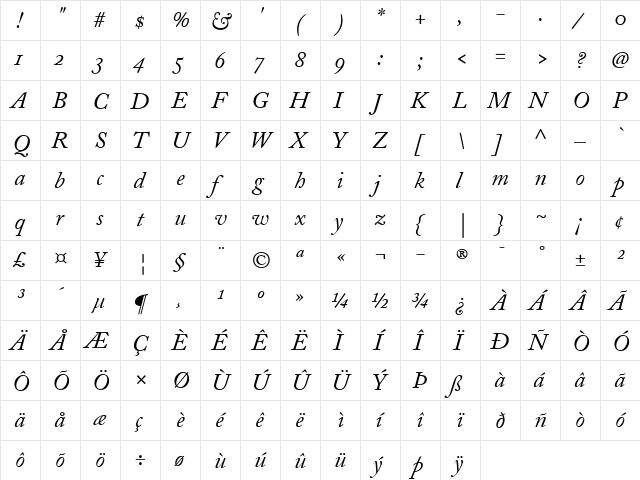
ACaslon RegularSC Italic
Design Context for ACaslon RegularSC Typeface
ACaslon RegularSC offers clean, dependable letterforms without strong stylistic allegiance, making it a practical choice for designers who need flexibility. The dynamic lean of this cut emphasises speed and emphasis in any layout.
Pro Tip: Try ACaslon RegularSC for annotation and caption copy alongside an upright companion — the contrast in angle creates a dynamic but ordered typographic system.